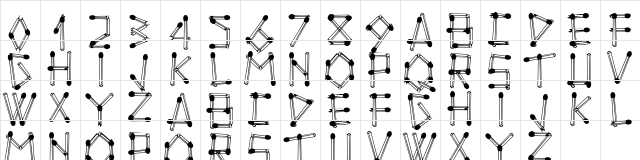
Vintages Matches Demo Regular
| Designer | Abo Daniel 2020 |
Design Context for Vintages Matches Demo Typeface
Vintages Matches Demo wears its vintage influences proudly, with letterforms that recall mid-century signage, classic packaging, and nostalgia-driven design.
Perfect for vintage-inspired branding, retro packaging, nostalgia campaigns, and period-accurate editorial design.
Font Pairing: Combine Vintages Matches Demo with a simple slab or neutral sans — period-accurate companions reinforce the vintage feel without competing for attention.
Pro Tip: Use Vintages Matches Demo for headlines and pull quotes rather than body copy — its personality is best appreciated in short, focused bursts.